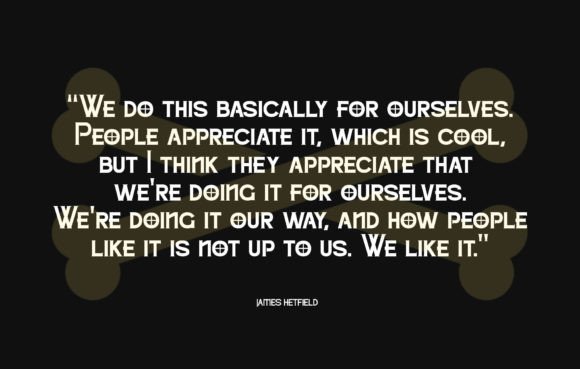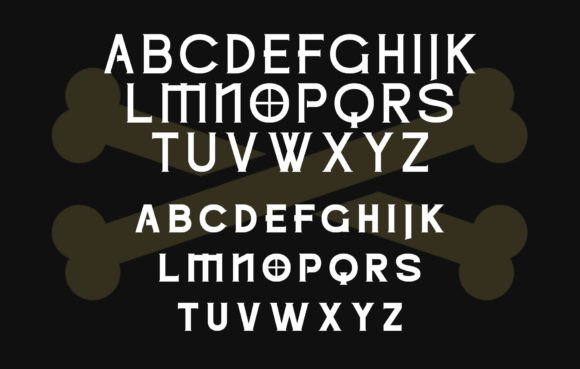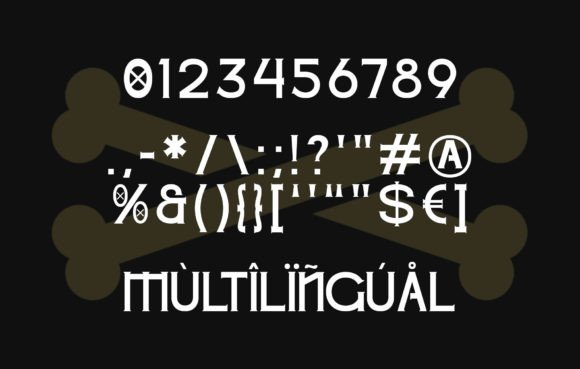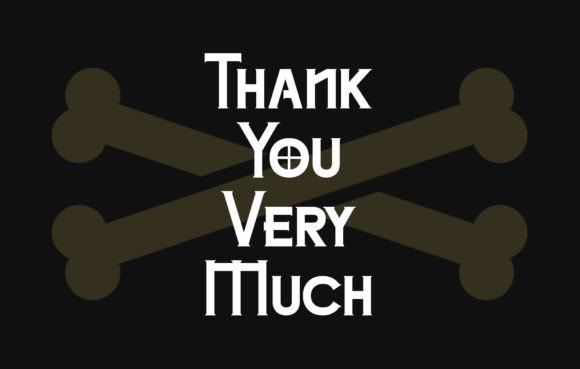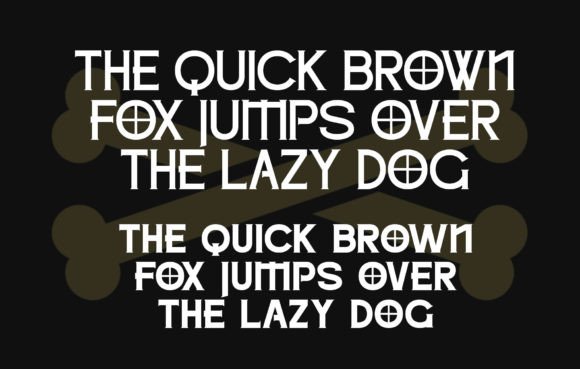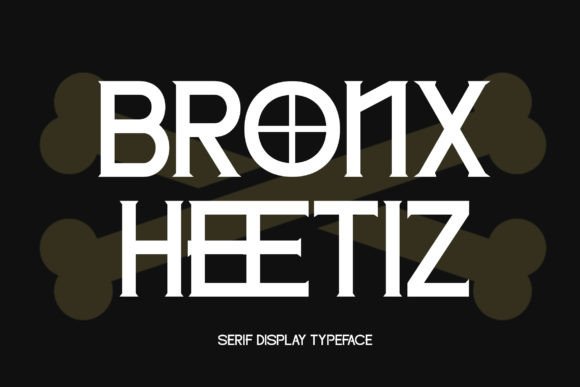
Introducing Bronxheetiz Font: The Ultimate Serif Choice for Designers and Crafters
In the world of typography, fonts play a crucial role in conveying messages, expressing emotions, and creating visual identities. For designers and crafters, finding the perfect font can be a daunting task, especially when it comes to creating stunning visual content. This is where Bronxheetiz Font comes in – a serif font with solid font files that’s taking the design world by storm.
What is Bronxheetiz Font?
Bronxheetiz Font is a thoughtfully crafted serif font that’s based on the compact solid font. By combining a variety of styles, this font offers a unique and versatile look that’s perfect for a wide range of design applications. Whether you’re a designer, crafter, or simply a typography enthusiast, Bronxheetiz Font is sure to impress.
Key Features of Bronxheetiz Font
- Solid Font Files: Bronxheetiz Font comes with solid font files, ensuring that your designs look crisp and professional.
- Serif Style: The serif style of Bronxheetiz Font adds a touch of elegance and sophistication to your designs.
- Compact and Versatile: This font is designed to be compact and versatile, making it perfect for a variety of design applications.
- Multi-Style: Bronxheetiz Font combines a variety of styles, allowing you to experiment with different looks and feels.
Use Cases for Bronxheetiz Font
So, what can you use Bronxheetiz Font for? The possibilities are endless! Here are some ideas to get you started:
- Music and Band Designs: Create stunning music posters, band logos, and album covers with Bronxheetiz Font.
- Logo Design: Use Bronxheetiz Font to create memorable and professional logos for your brand or business.
- Greeting Cards and Quotes: Add a touch of elegance to your greeting cards and quotes with Bronxheetiz Font.
- Posters and Flyers: Create eye-catching posters and flyers for events, promotions, or announcements.
- Branding and Identity: Use Bronxheetiz Font to create a consistent visual identity for your brand or business.
- Name Cards and Stationery: Add a professional touch to your name cards and stationery with Bronxheetiz Font.
- Design Titles and Blog Headers: Use Bronxheetiz Font to create stunning design titles and blog headers that grab attention.
- Art Quotes and Typography: Experiment with Bronxheetiz Font to create stunning art quotes and typography pieces.
Why Choose Bronxheetiz Font?
So, why should you choose Bronxheetiz Font for your design projects? Here are just a few reasons:
- Unique and Versatile: Bronxheetiz Font offers a unique and versatile look that’s perfect for a wide range of design applications.
- High-Quality Font Files: This font comes with high-quality font files that ensure your designs look professional and crisp.
- Perfect for Designers and Crafters: Whether you’re a designer or crafter, Bronxheetiz Font is the perfect choice for creating stunning visual content.
In conclusion, Bronxheetiz Font is a versatile and unique serif font that’s perfect for designers and crafters. With its solid font files, compact style, and multi-style approach, this font is sure to impress. Whether you’re creating music posters, logos, greeting cards, or typography pieces, Bronxheetiz Font is the ultimate choice. So why wait? Download Bronxheetiz Font today and take your designs to the next level!